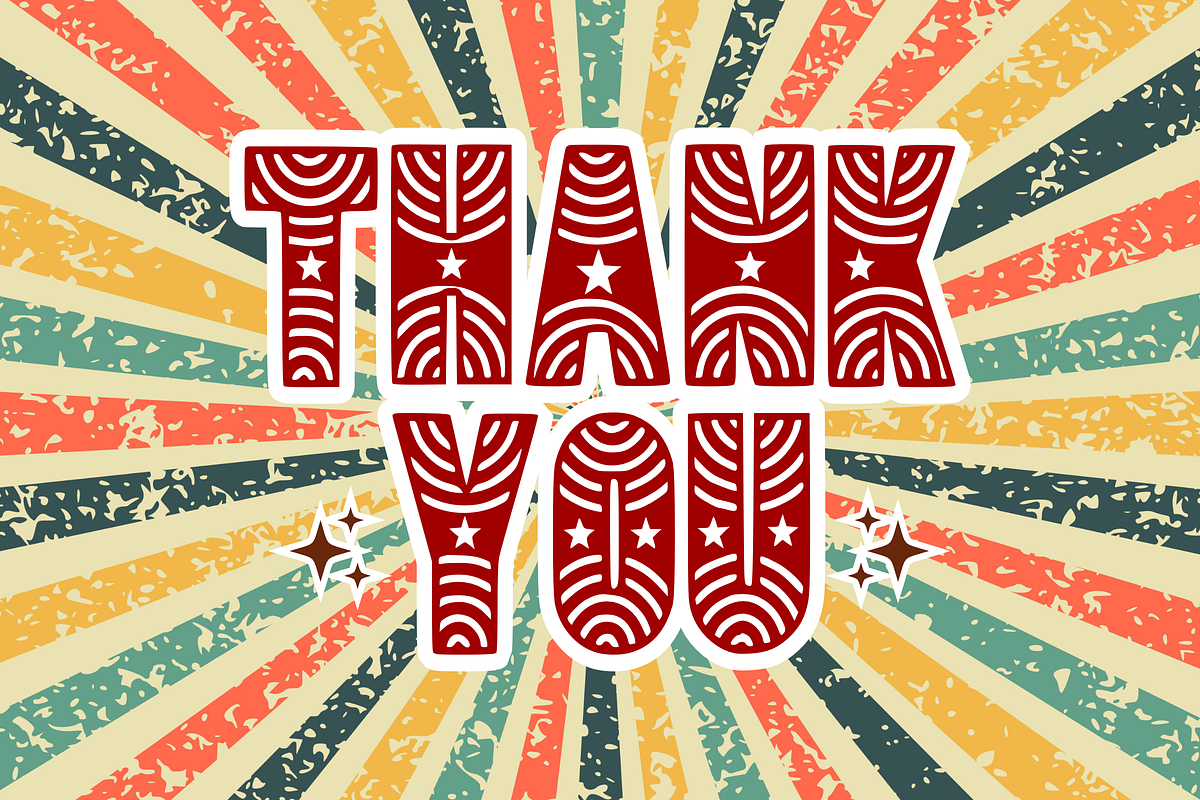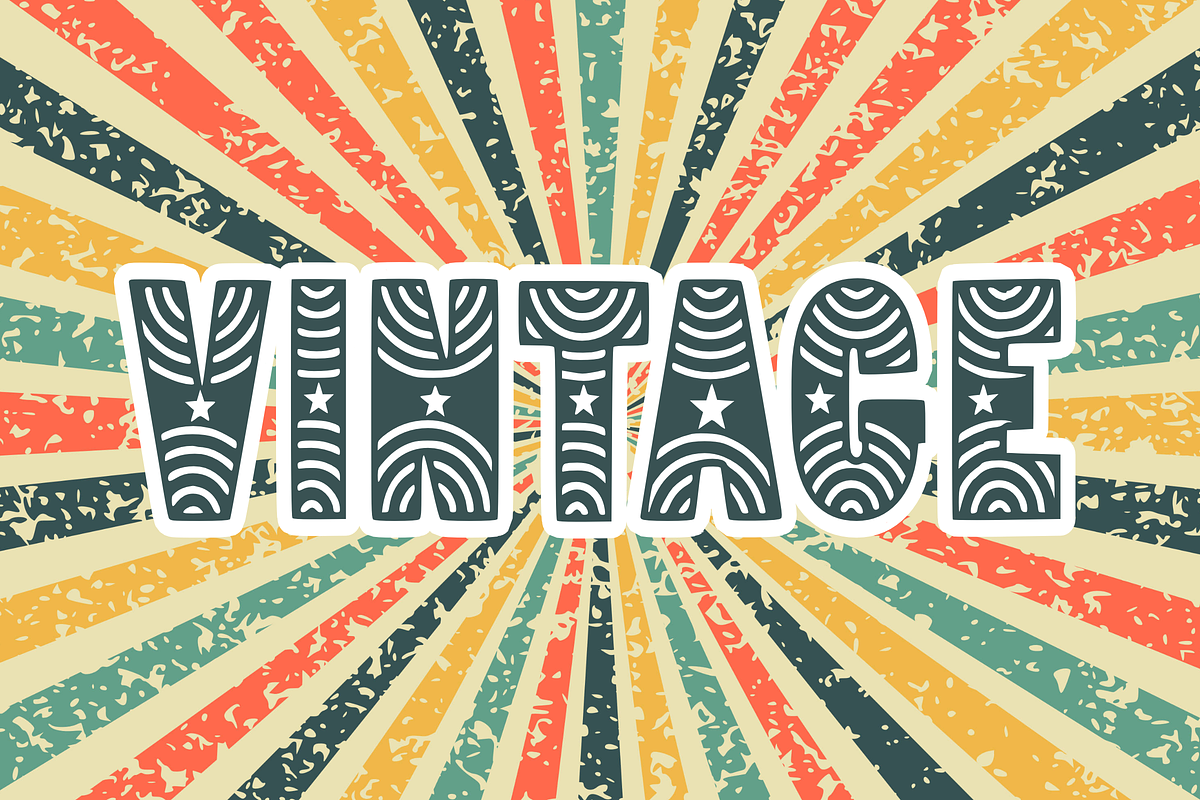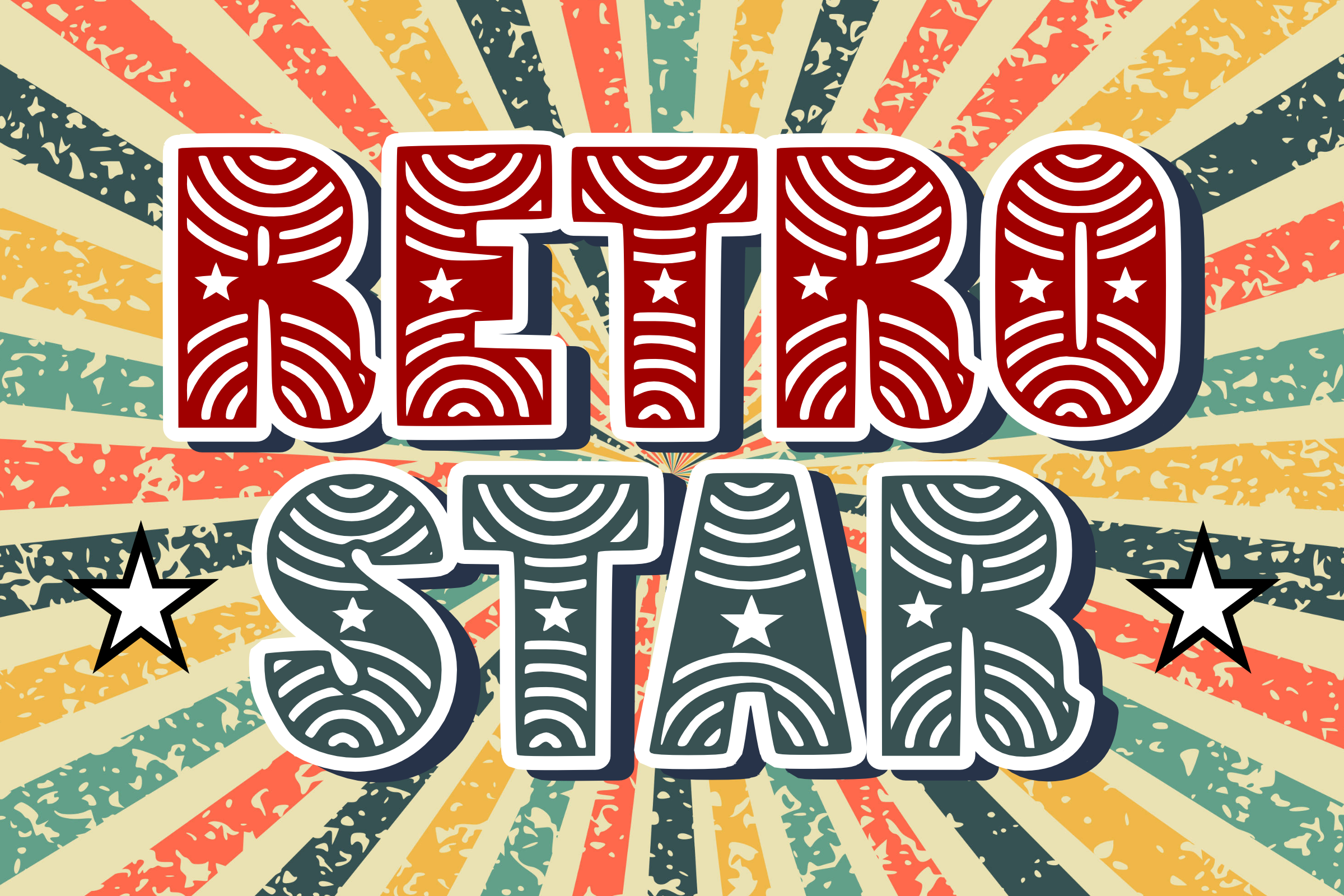
Retro Star - Retro Font Types
Meet “Retro Star,” an irresistibly charming vintage-inspired font. Each character is a unique work of art, brimming with nostalgia – grabbing attention effortlessly and instantly recognizable. Ideal for infusing a touch of old-school cool into sublimation t-shirt designs or adding a pop of personality to mugs and tote bags, Retro Star makes a striking impression. Try it on animations or comic titles for an authentically retro feel. With Retro Star, the canvas of your imagination is waiting to be filled. Like, follow, and show your support as we continue dreaming up more creative, one-of-a-kind fonts. Thank you!